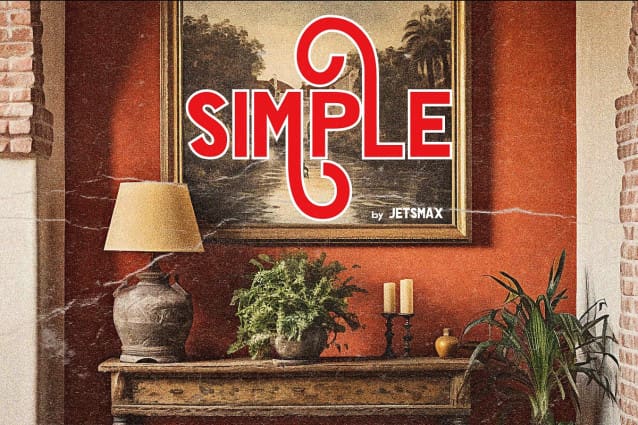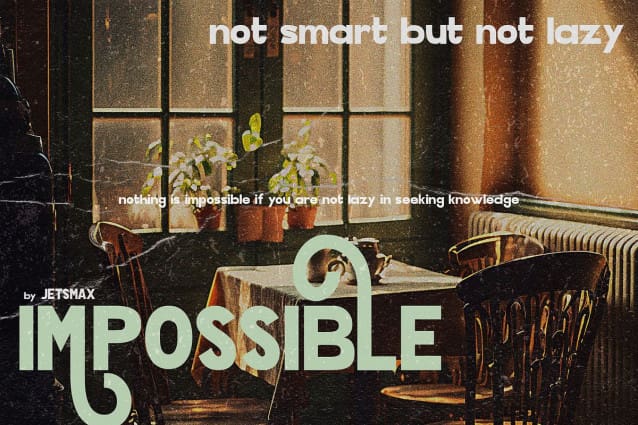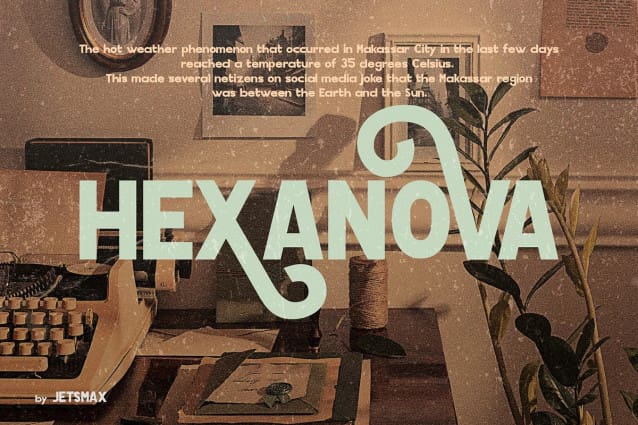
Hexanova Font
Hexanova Font is a handmade display font that is text friendly but will give an elegant touch in its alternative characters. With its free style, this font specifically design to elevate your project and make it stand out even more.
Hexanova Font best uses for poster, logotype, branding, cover, events, advertisements, animation, social media post, advertisements, and many more. Let your imagination run free!